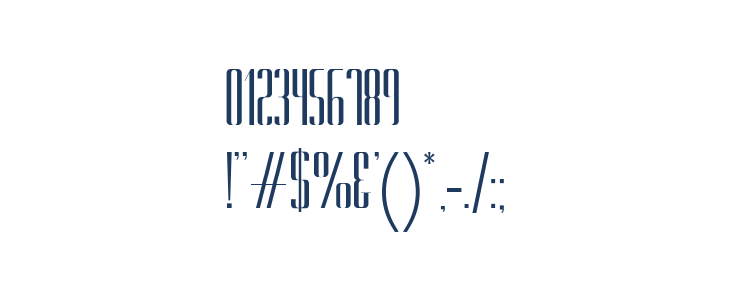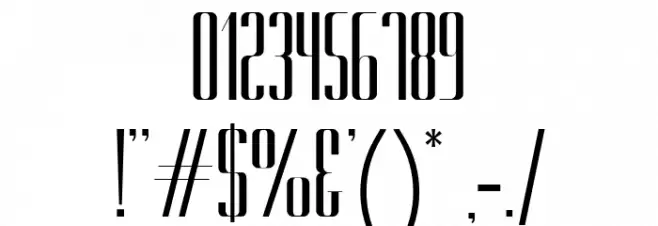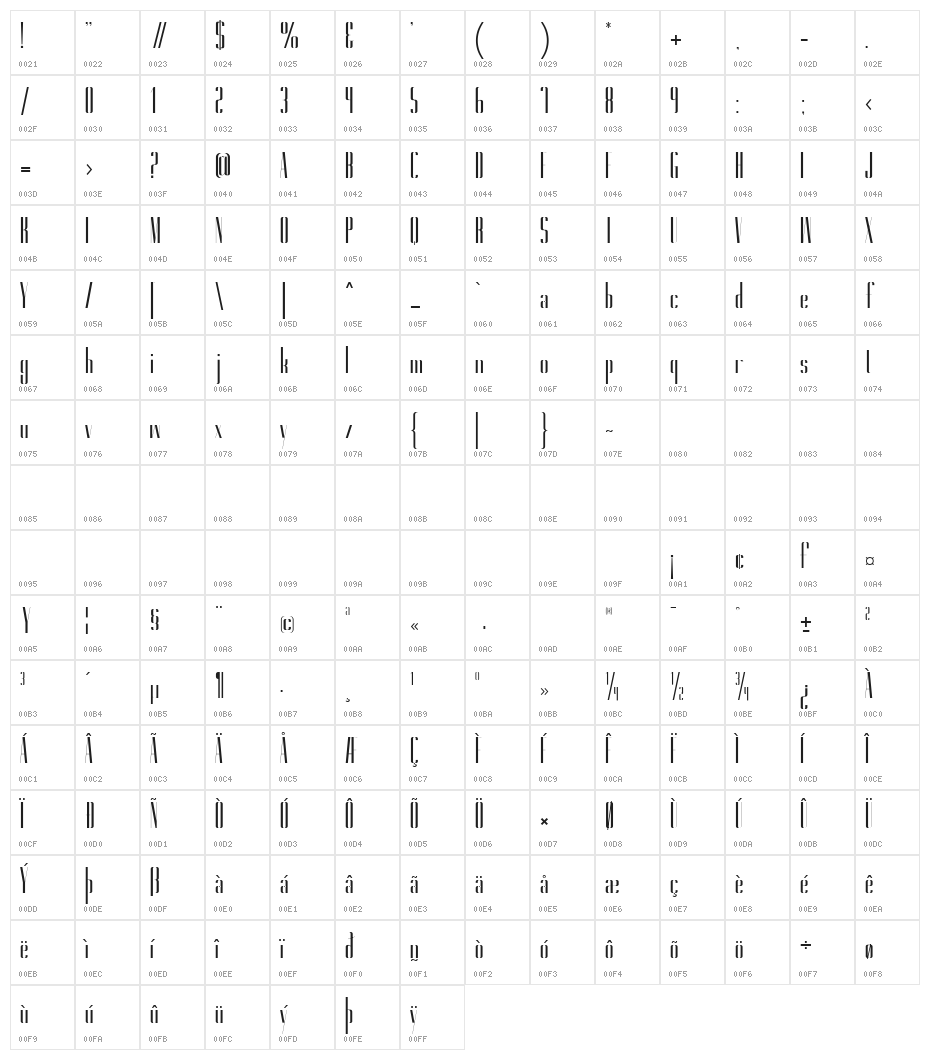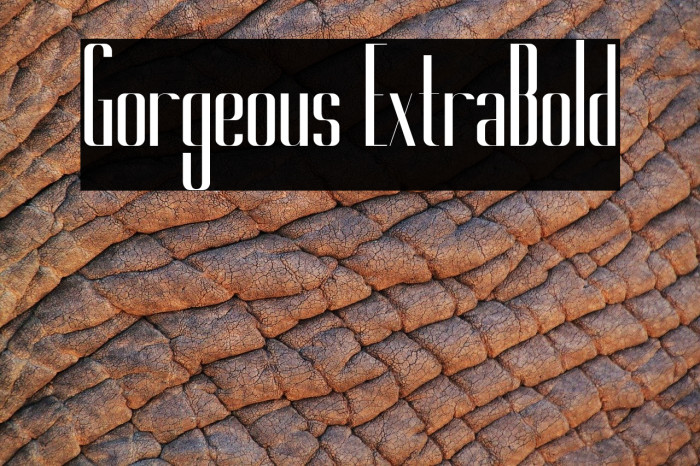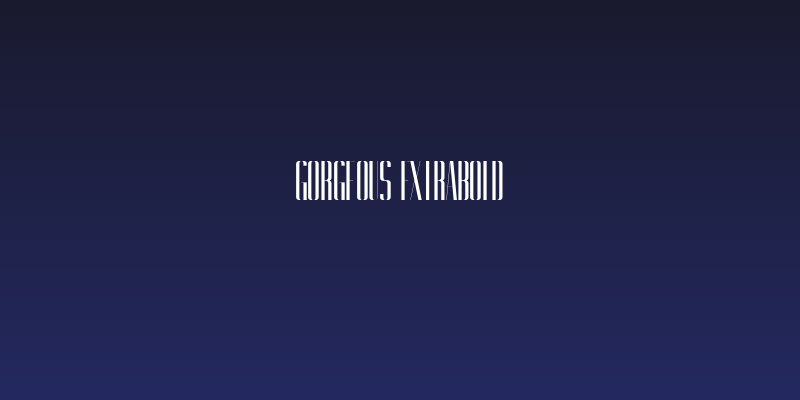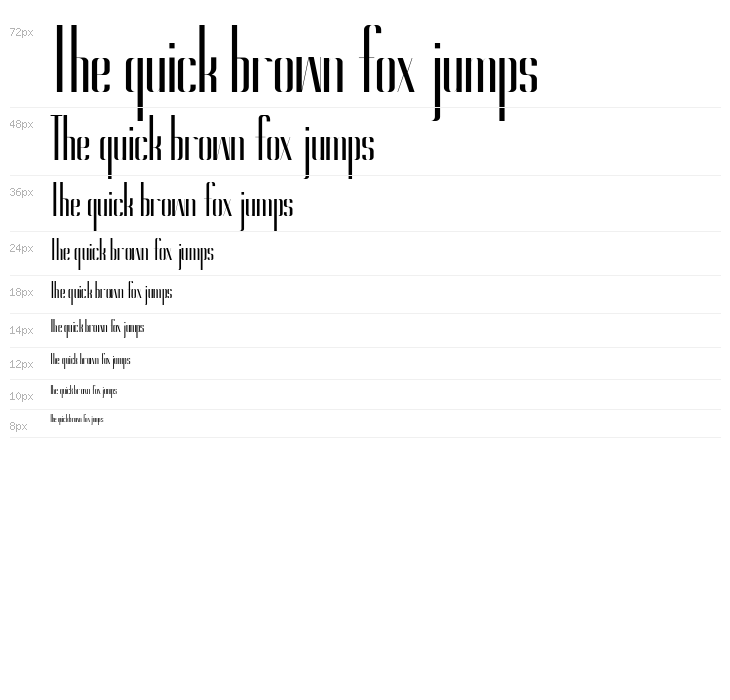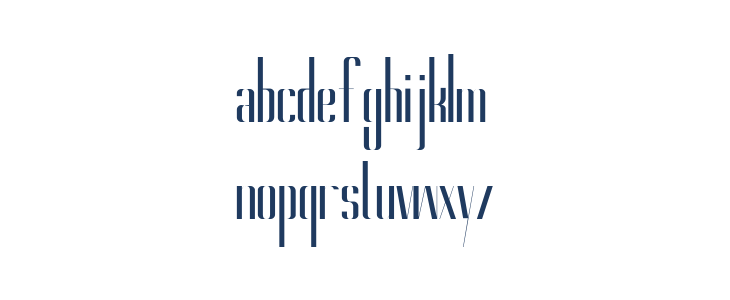
Gorgeous ExtraBold Font
Gorgeous ExtraBold Description
This font features an elegant and sophisticated design with elongated, narrow letterforms that exude a sense of modernity and style. The uppercase letters are tall and slender, while the lowercase letters maintain a consistent height, creating a harmonious balance. The numerals are distinct and match the overall sleek aesthetic. Special characters are crafted with precision, adding to the font's versatility. The high contrast between thick and thin strokes enhances its visual impact, making it suitable for attention-grabbing headlines and titles.
| Proposed Projects | Ideal for fashion magazines, luxury branding, editorial headlines, and modern advertising campaigns. |